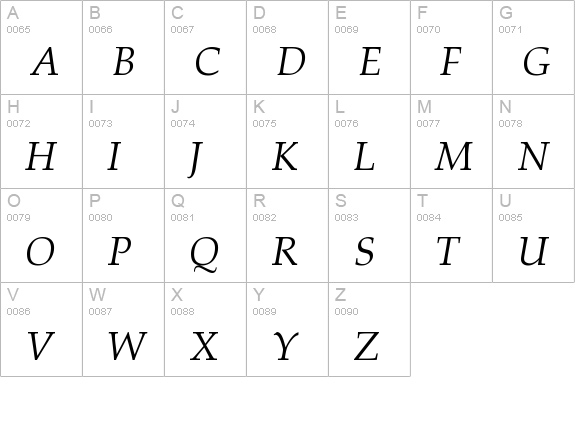
HI Piilani Italic Font Details
HI Piilani Italic is a distinctive, italic variant in the HI typeface family \xE2\x80\x94 well suited to design and typography projects.
HI Piilani Italic font is a beautiful and elegant typeface that exudes sophistication and charm. With its slanted letterforms and graceful curves, this font is perfect for adding a touch of class to any design project. Whether you're working on a wedding invitation, a business card, or a branding project, HI Piilani Italic is sure to make a lasting impression. What's even better is that HI Piilani Italic font is available for free download at FontsMarket.com. You can easily access this stunning font and use it in your projects without any cost. So why wait? Add a touch of elegance to your designs with HI Piilani Italic today!